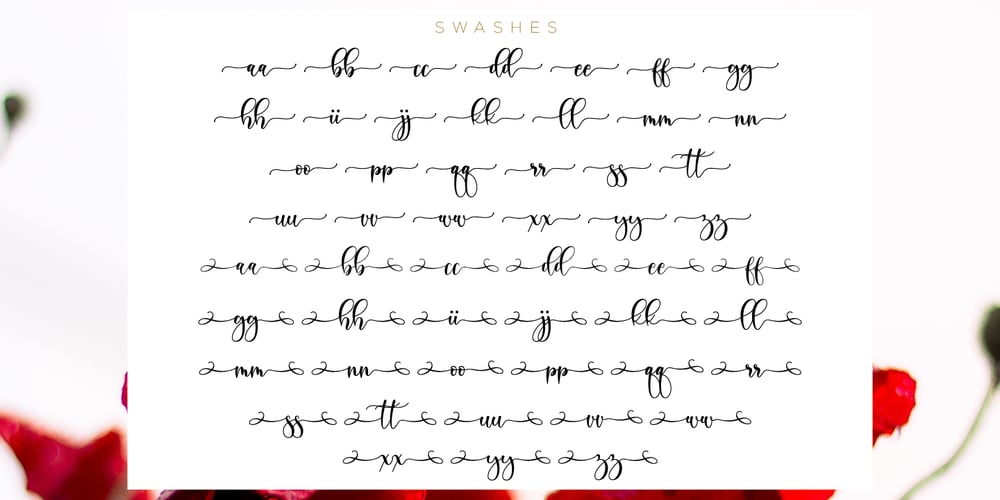
Boshela Font Family was designed by Novia Himatunnisa and published by Nissa Nana. Boshela contains 1 styles and family package options. Boshela is a beautiful script font with a classy, elegant, and modern look. Get inspired by its authentic vibe!